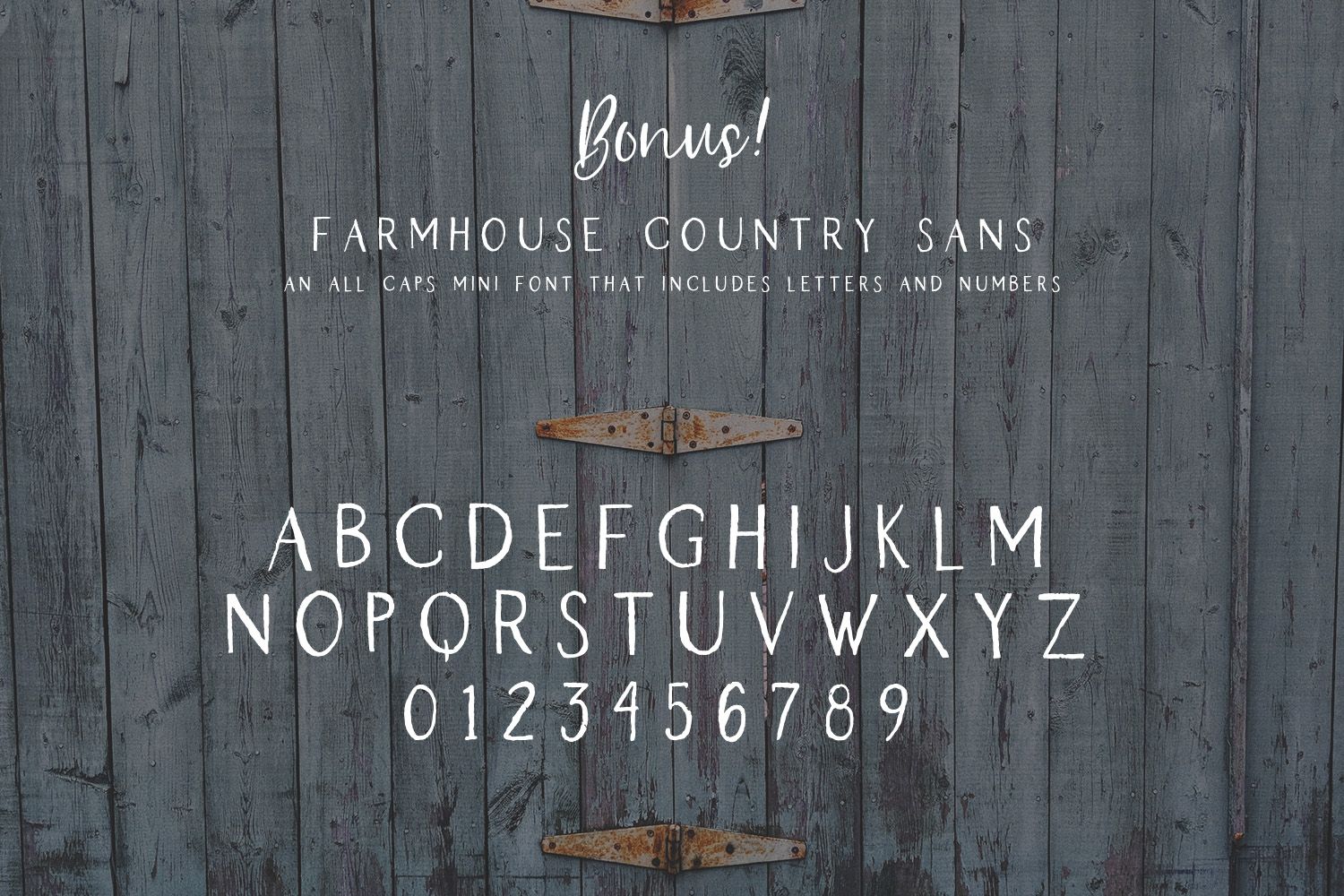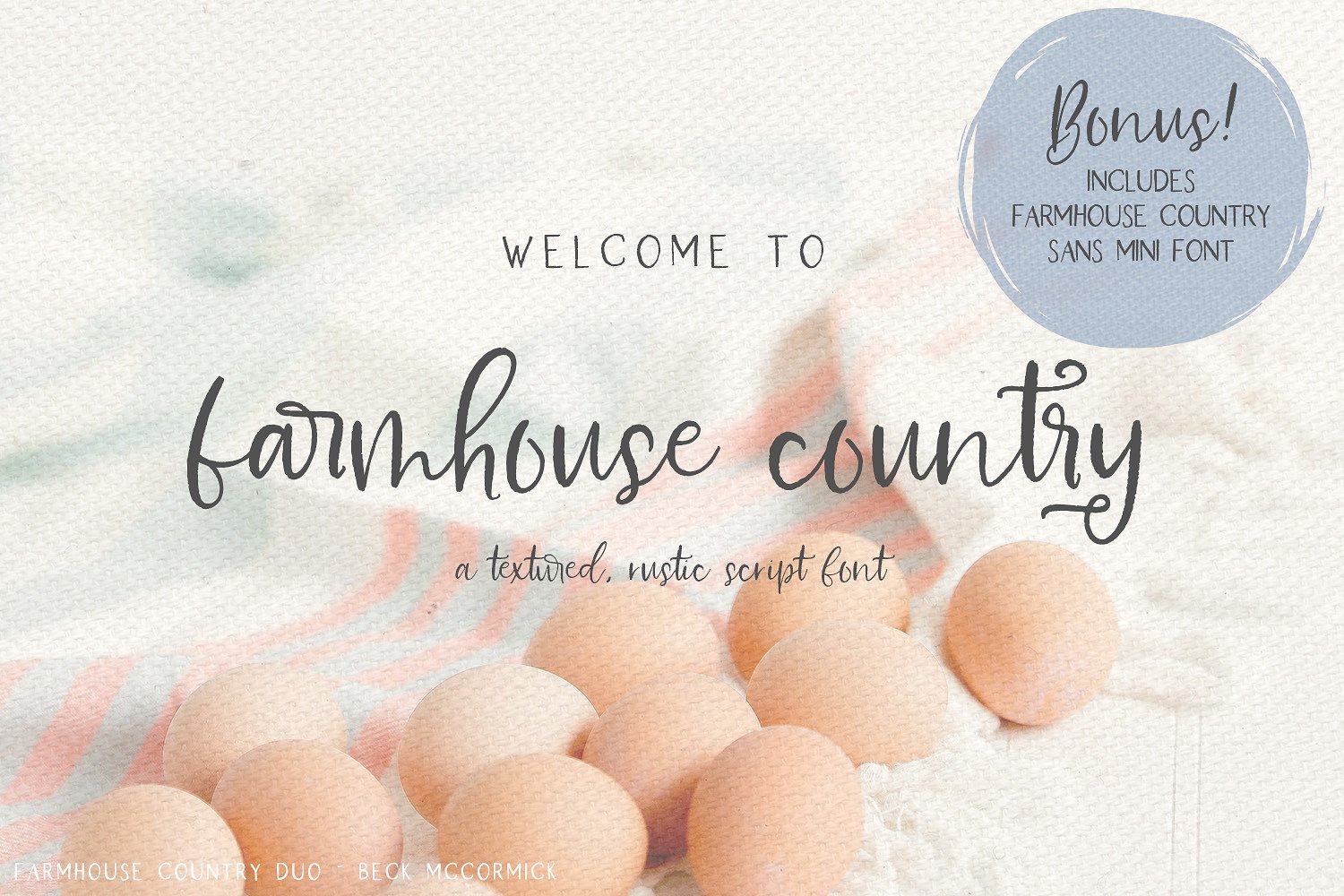
Farmhouse Country Font
Farmhouse Country Font is mostly utilized in the circuits. It is known as the great font generator. This typeface is present inside the Microsoft Word. The ones are hand-drawn fonts absolutely deliver off an actual private touch for your tasks.